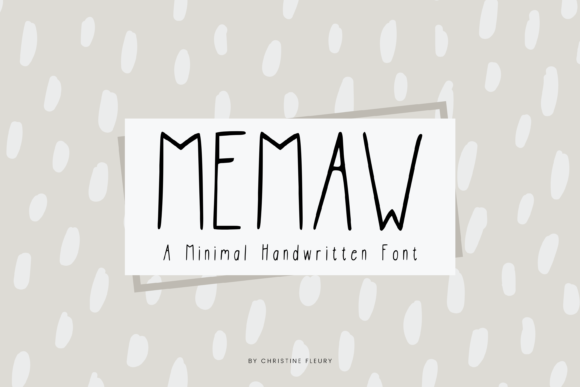
Introducing MeMaw Font - The Quintessence of Timeless Elegance in the Digital Age
In the realm of typography, MeMaw Font stands as a beacon of timeless elegance, a font family that exudes sophistication and simplicity. Inspired by the allure of old newspapers, MeMaw captures the essence of nostalgia while remaining resolutely modern. Its sans serif design radiates a clean and contemporary aesthetic, making it the perfect choice for a wide spectrum of creative endeavors.
Born from the creative brilliance of Christine Fleury, MeMaw Font embodies a unique blend of classicism and modernity. Its meticulously crafted characters evoke a sense of history and tradition while maintaining an air of innovation and freshness. Whether you seek to create elegant letterheads, captivating titles, or timeless stationery, MeMaw Font is your ultimate font companion.
With MeMaw Font at your fingertips, unleash your creativity and let your words dance across the page with grace and elegance. Its versatile nature makes it suitable for a myriad of design projects, from vintage-inspired logos to contemporary social media graphics.
Don't let ordinary fonts confine your creativity. Embrace the allure of MeMaw Font and witness the transformation of your designs into captivating works of art. Its timeless appeal will elevate your projects to new heights, leaving a lasting impression on your audience.